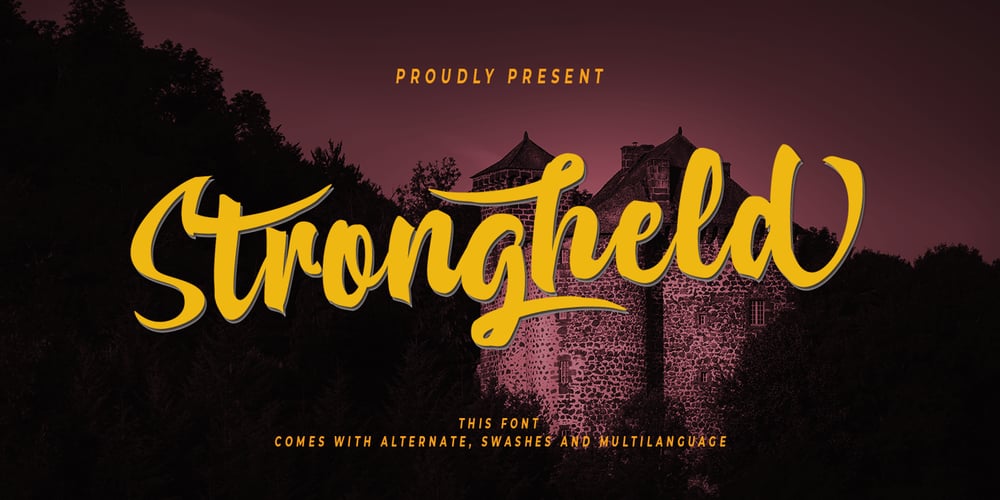
Strongheld Font Family was designed by Cut Nurfajarlia and published by Alandya TypeFoundry. Strongheld contains 3 styles and family package options. Strongheld is a handwritten script that is big beautiful. Strongheld comes with a stylistic alternates, swashes, and multi-lingual support. These features let you make that perfect and unique design, perhaps more simple, intimate, or natural. This font is good for vintage design, t-shirts, logos, labels, posters and more.